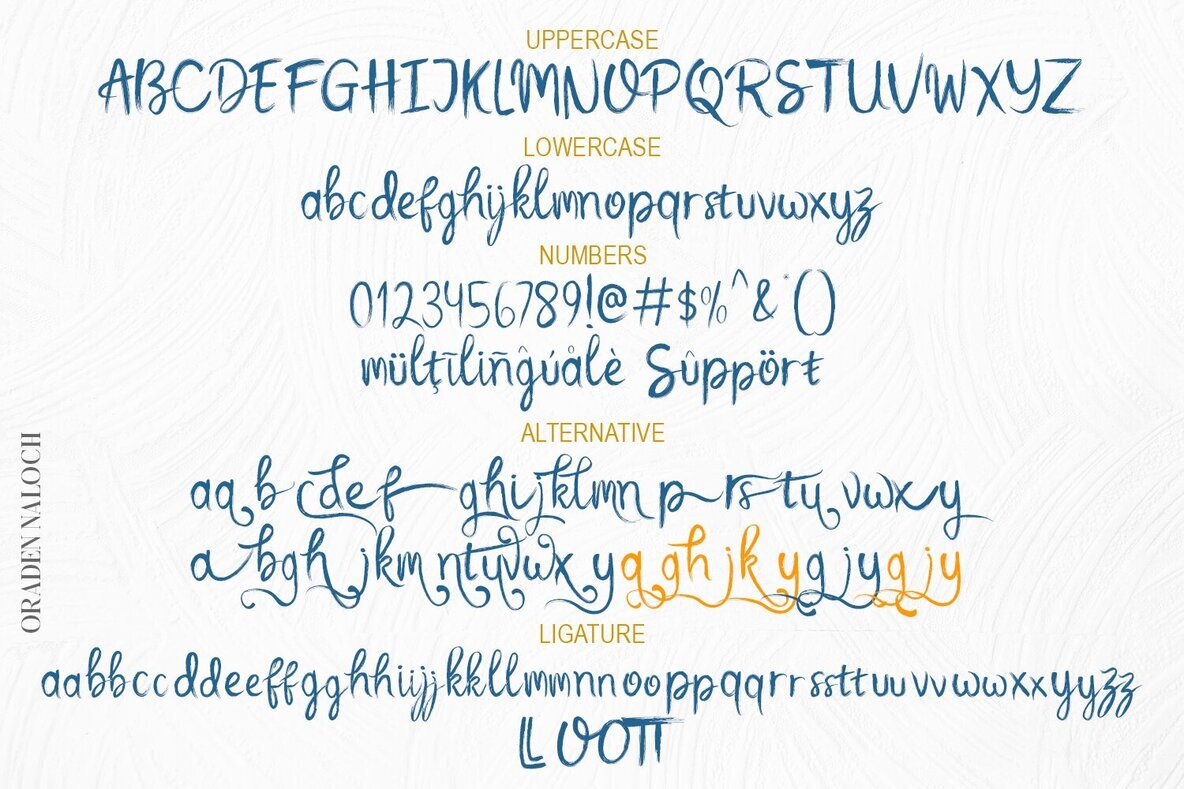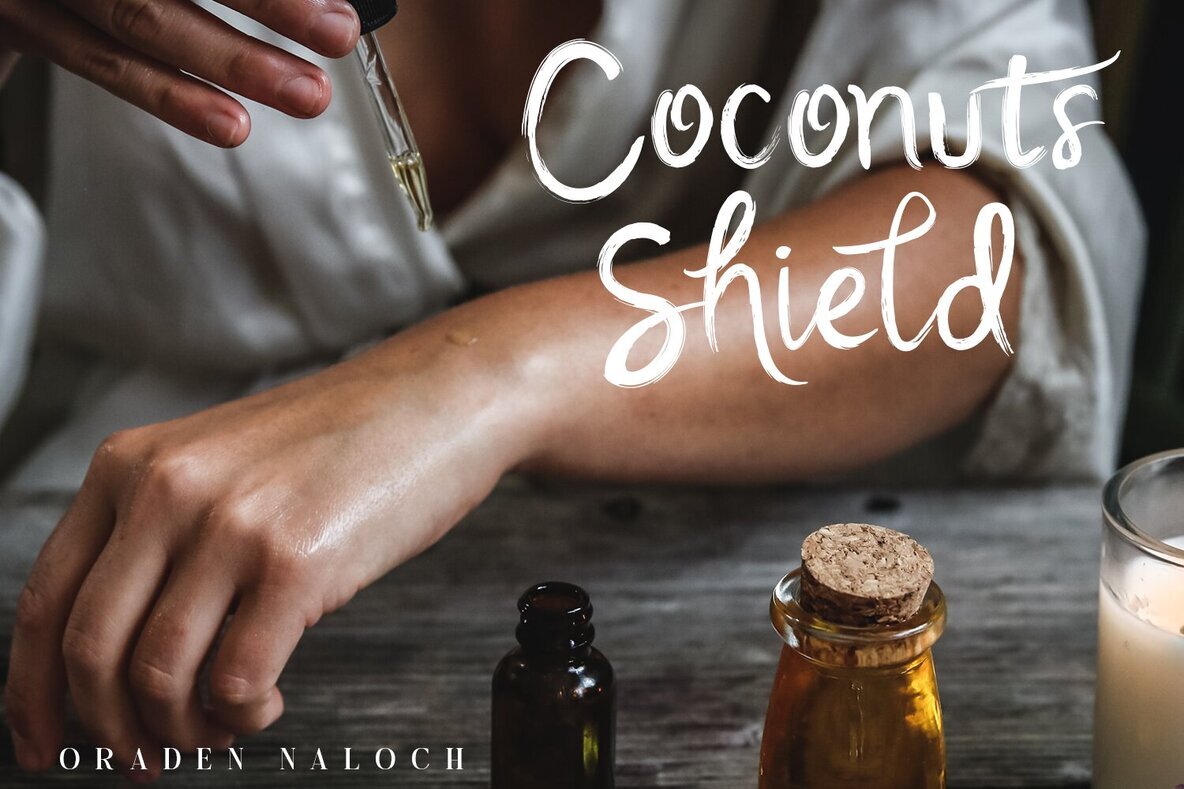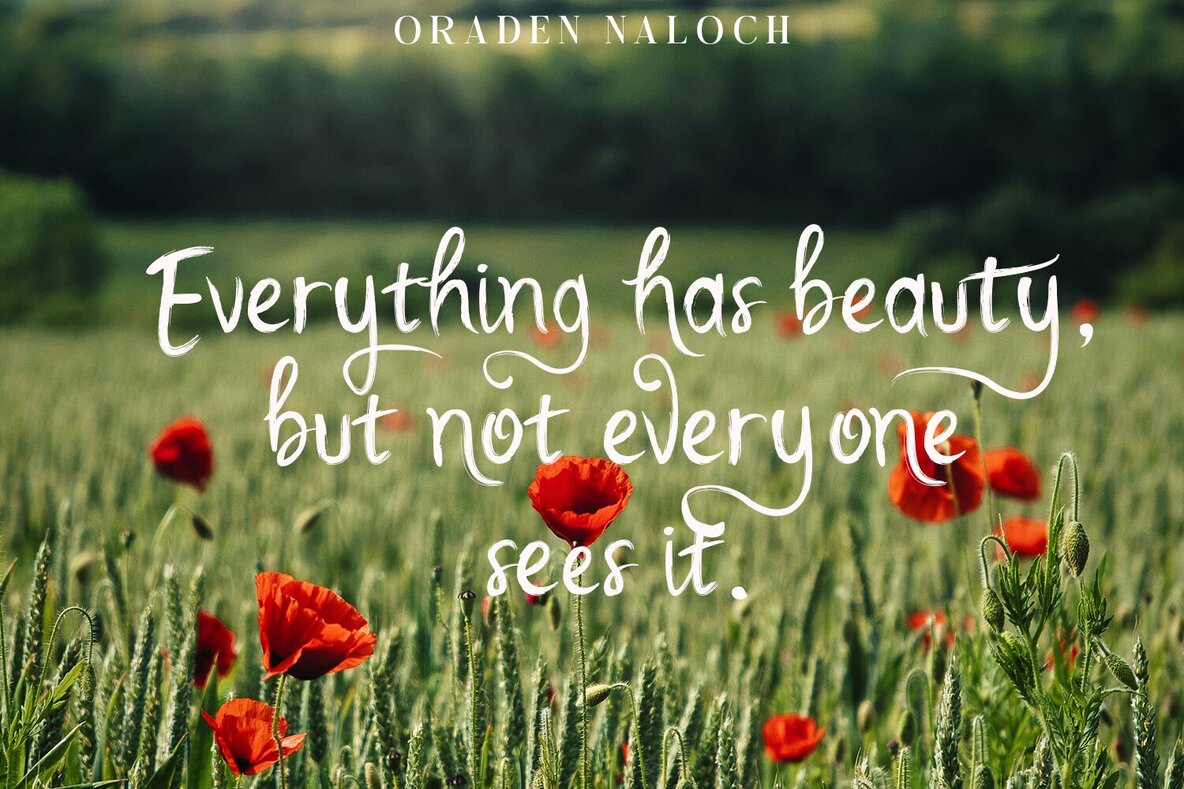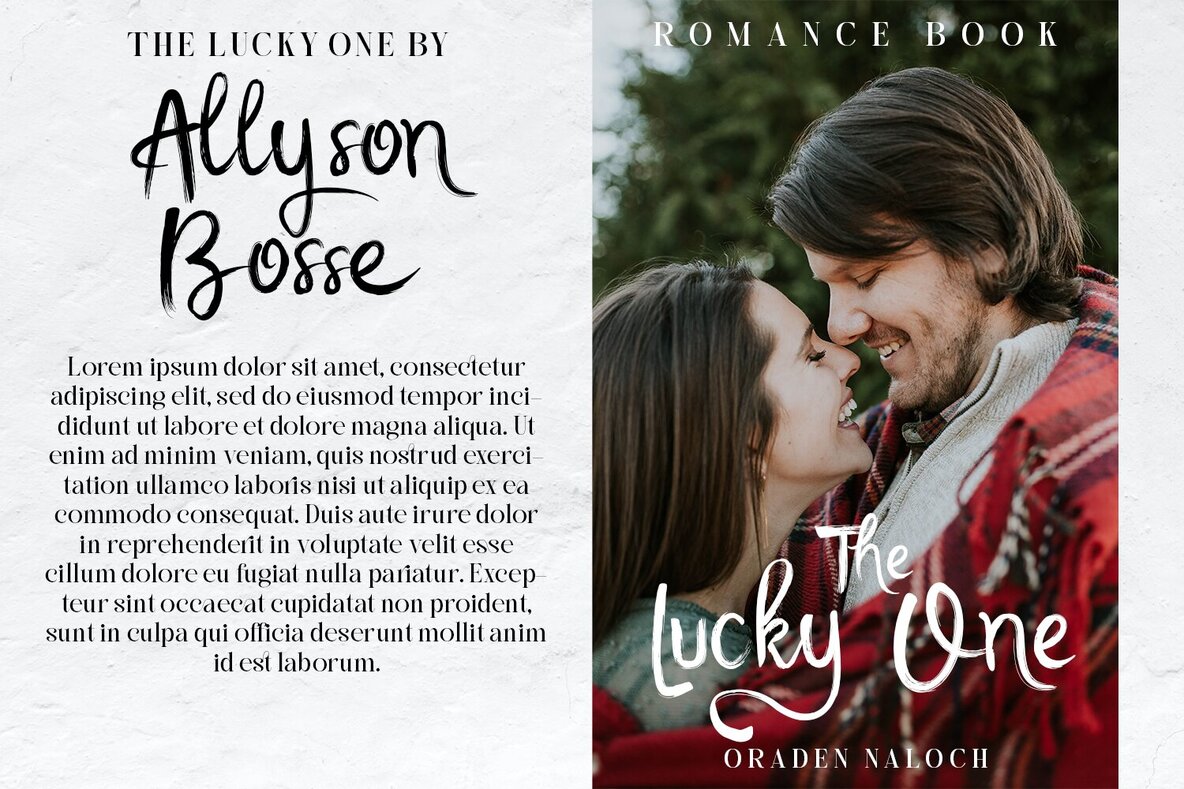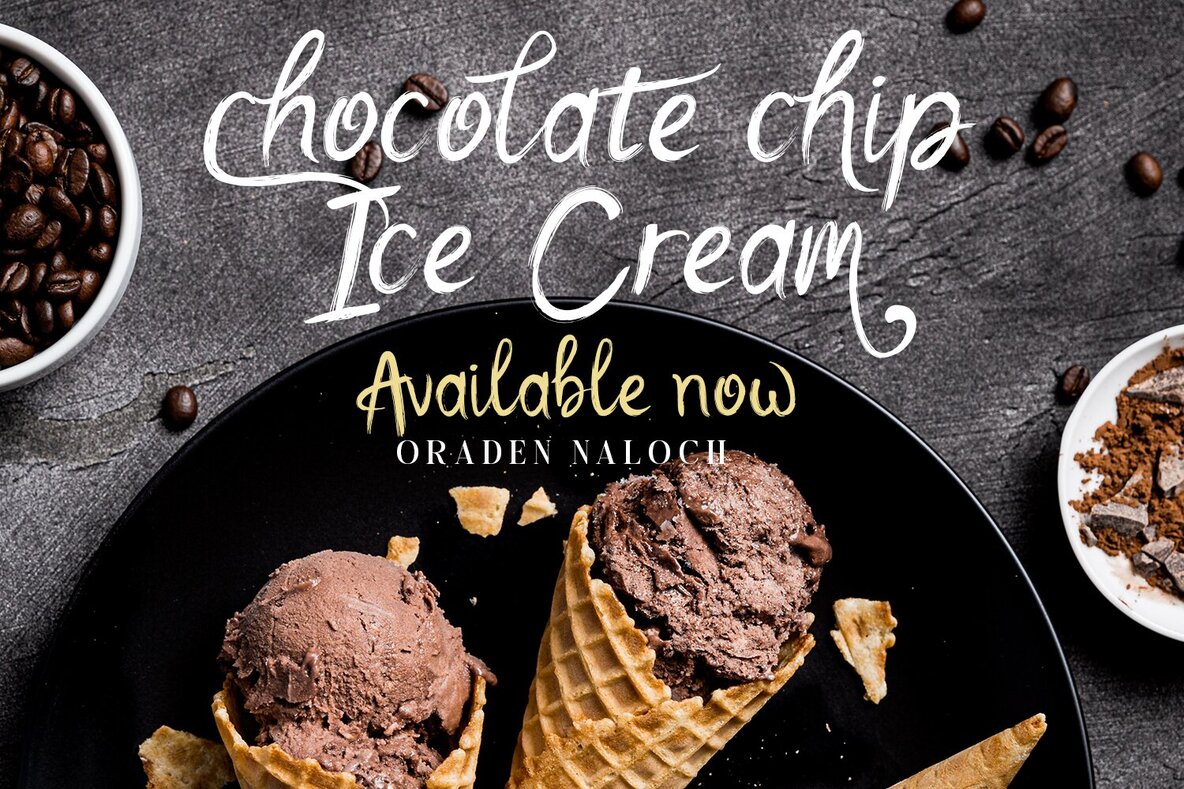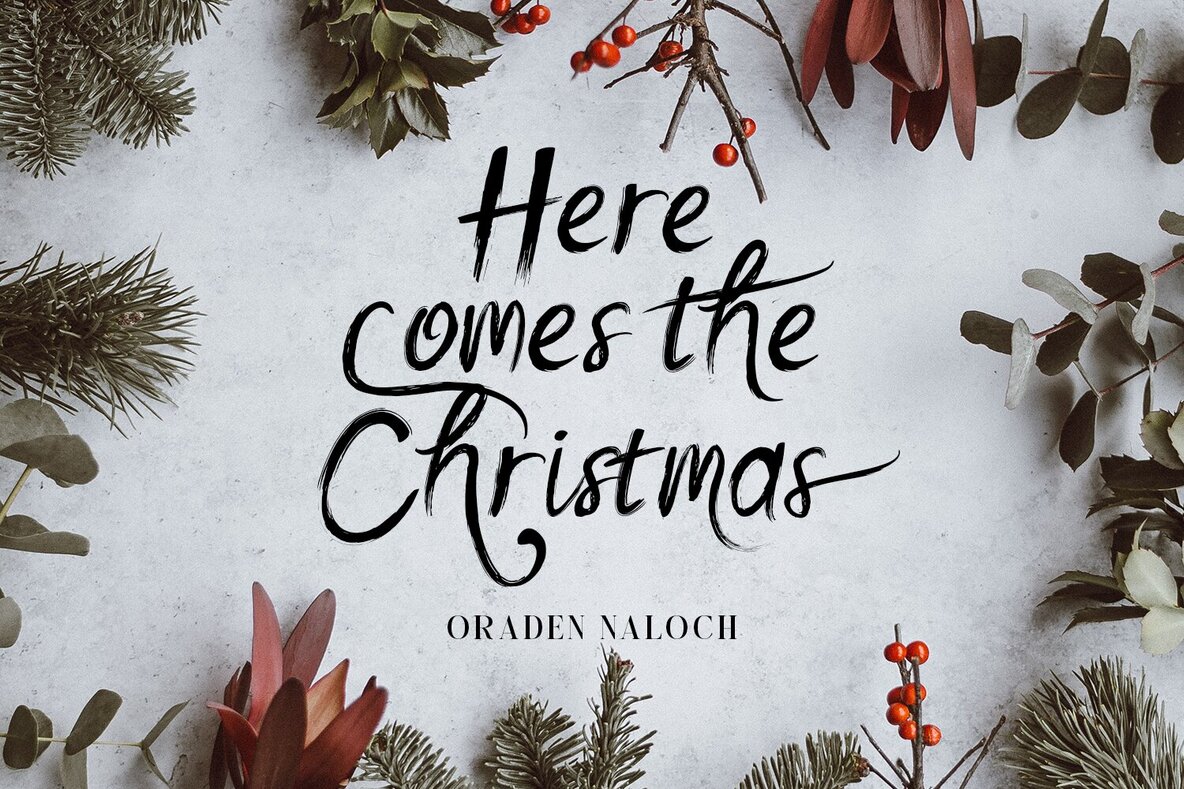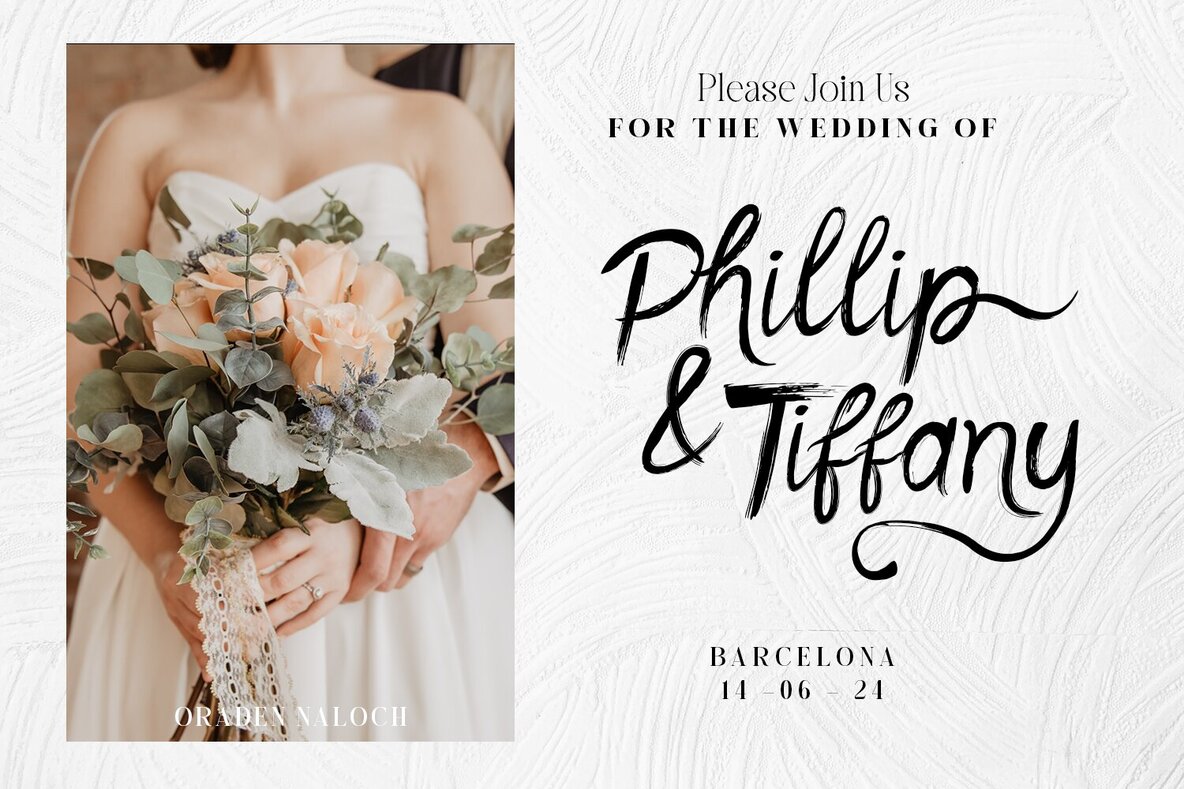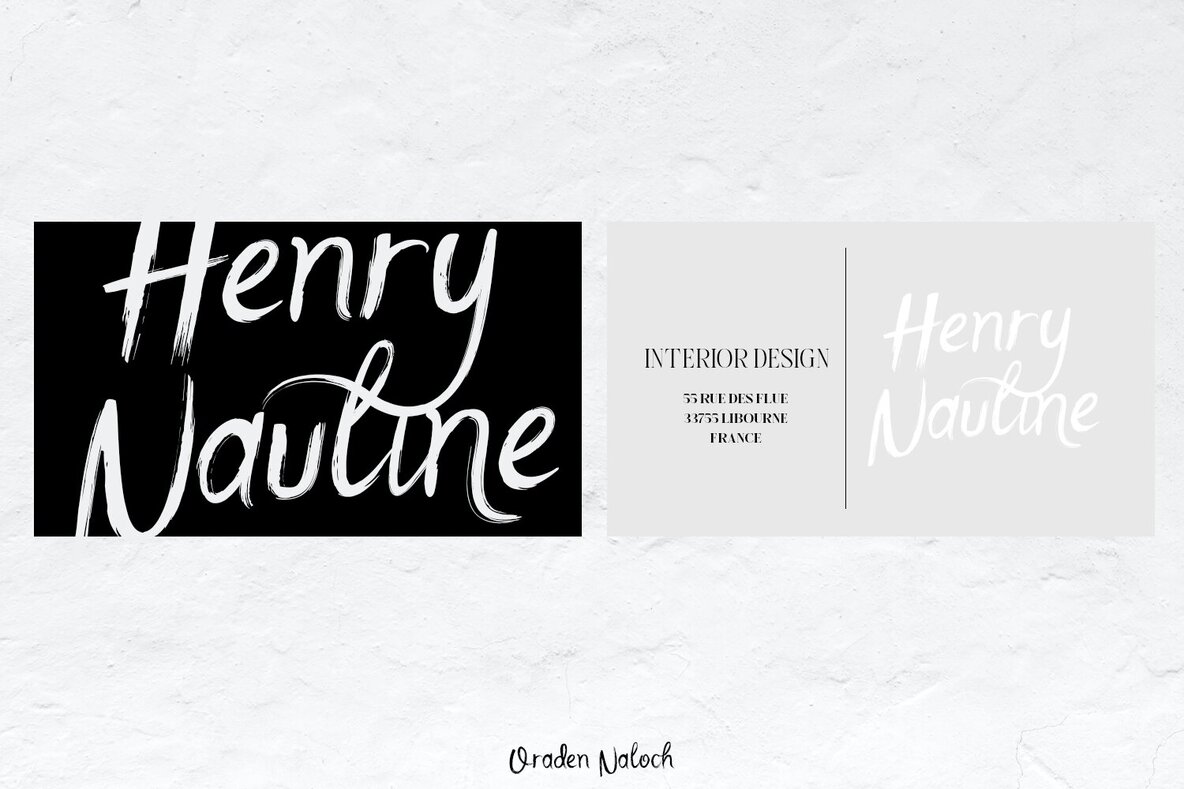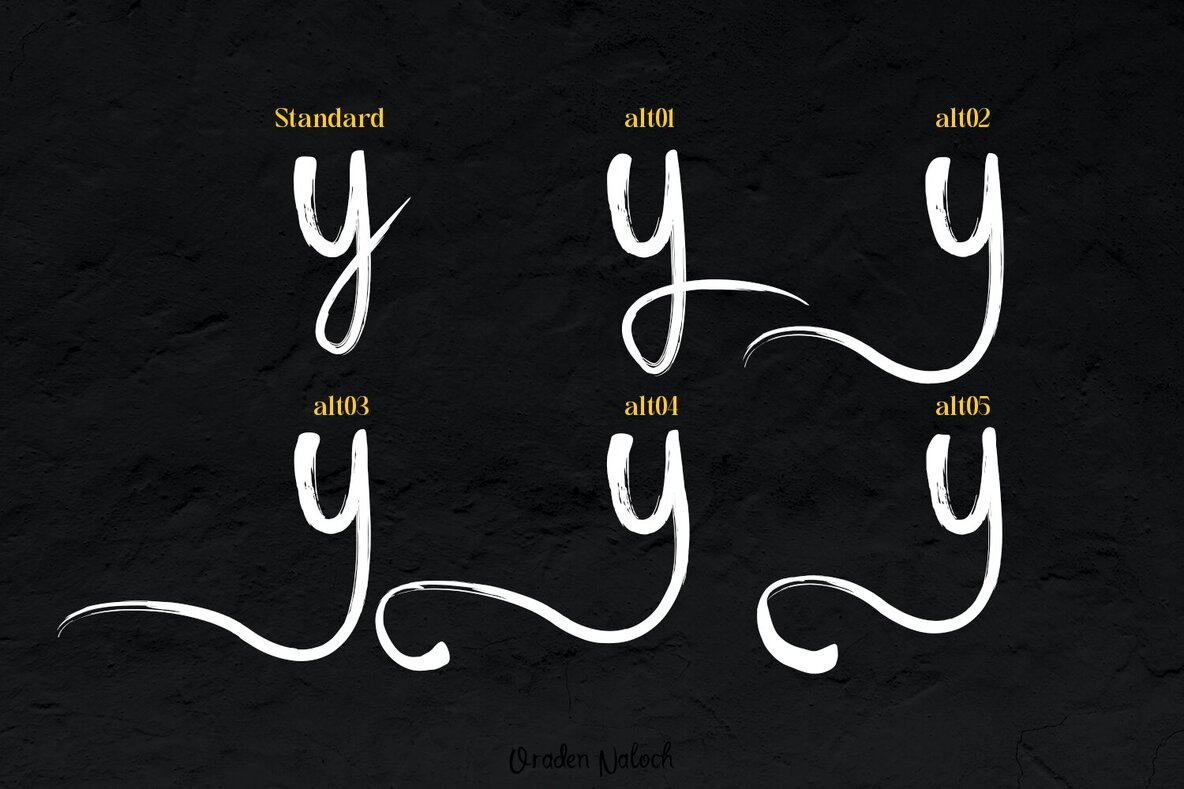
Oraden Naloch Font
Oraden Naloch is a modern handwritten Brush. This font perfect for poster design, book covers, merchandise, fashion campaigns, newsletters, branding, advertising, magazines, greeting cards, album covers, and quote designs and more.